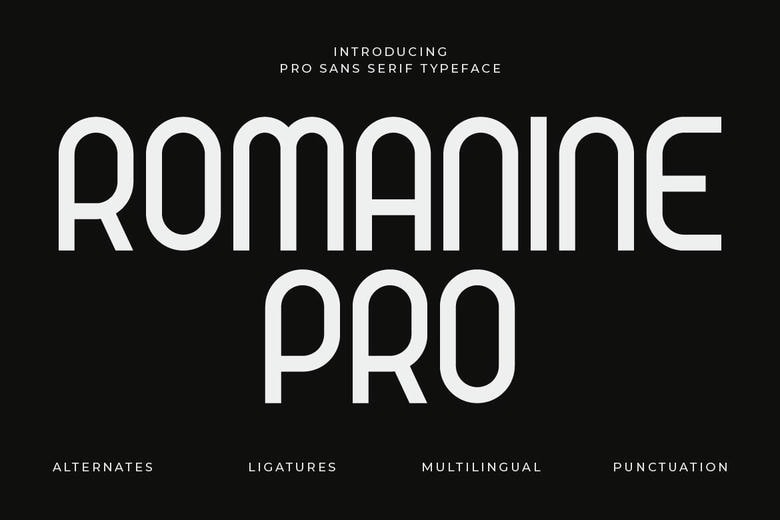
Romanine Pro Font
Romanine Pro is a modern condensed sans serif type design for clarity, impact and professional versatility. With clean geometry, high proportions and a refined narrow structure, Romanine Pro is ideal for headlines, editorial layouts, branding, posters, magazines, web design and modern visual identities.
Romanine Pro Sans Serif Font